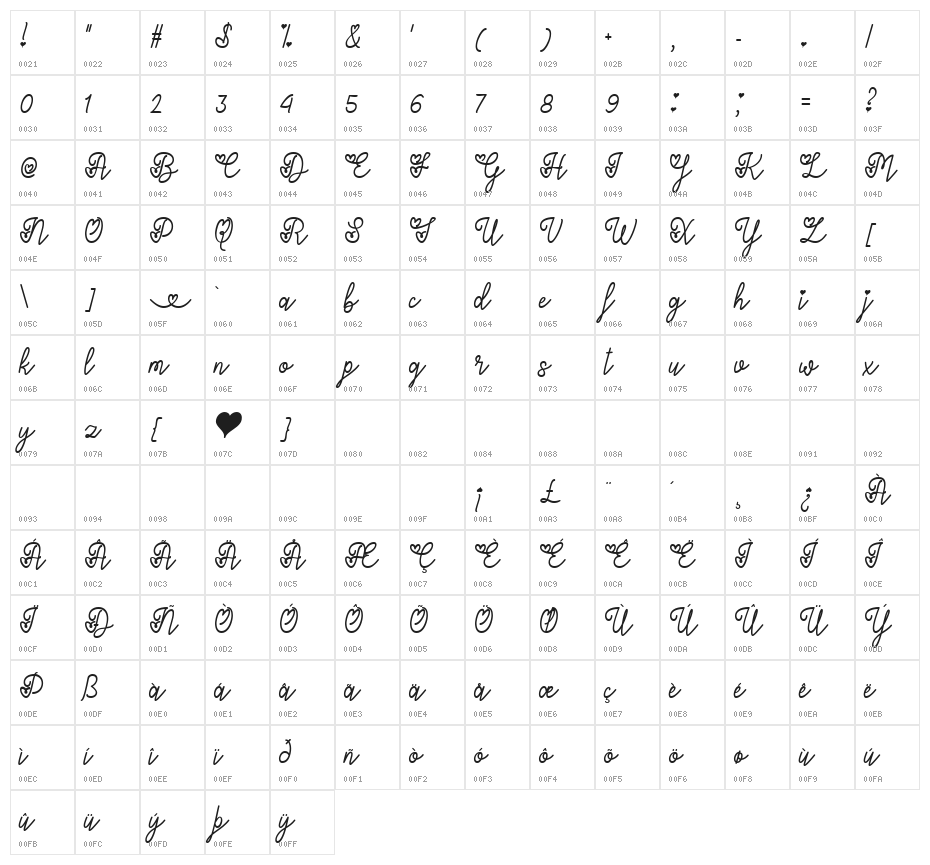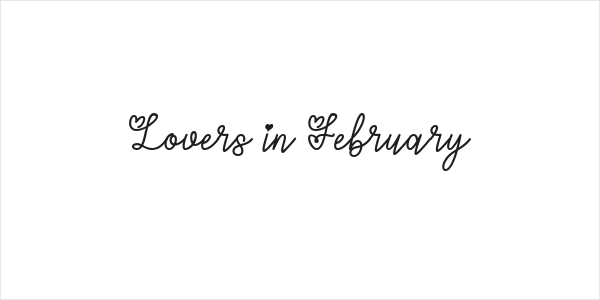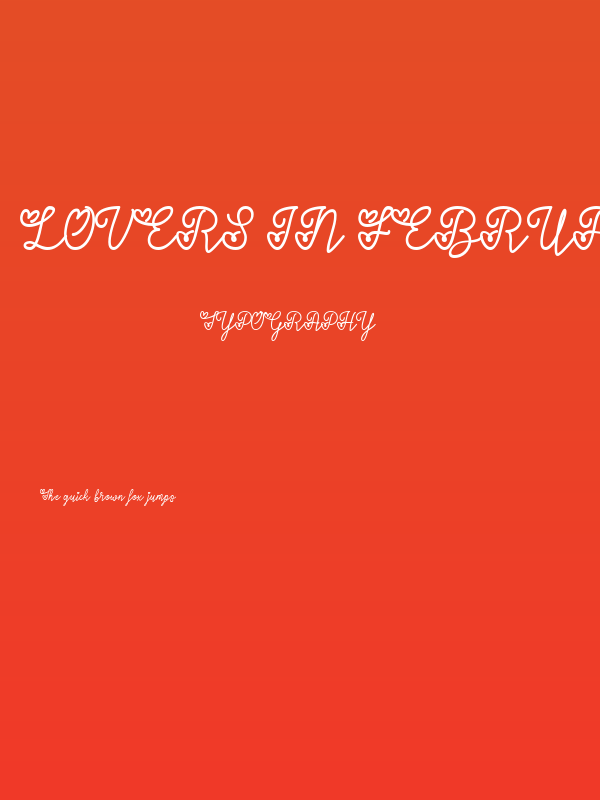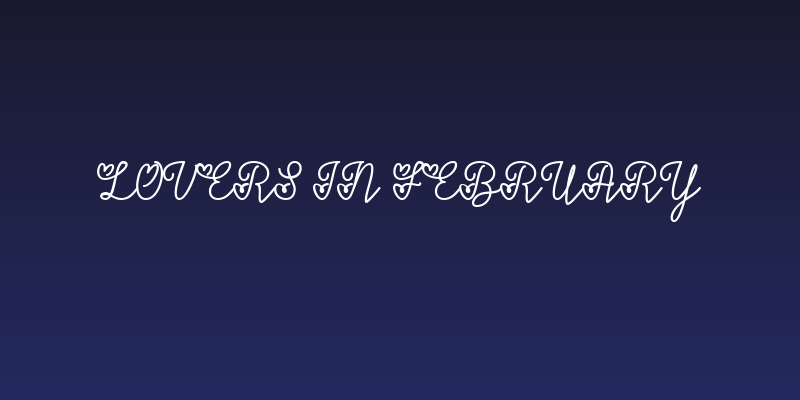
Lovers in February Font
Lovers in February Description
This font features a playful and romantic script style, characterized by flowing, interconnected letters with heart-shaped embellishments integrated into the design. The uppercase letters are particularly ornate, with each letter incorporating a heart motif, adding a whimsical and affectionate touch. The lowercase letters maintain a smooth, cursive flow, enhancing the font's overall elegance and charm. The numerals are consistent with the script style, offering a cohesive look. Special characters also include heart details, making this font ideal for love-themed projects. Its unique and decorative nature makes it stand out, perfect for capturing attention in creative designs.
Use CaseLogos, Invitations, Greeting Cards
Proposed ProjectsIdeal for wedding invitations, Valentine's Day cards, romantic branding, and love-themed posters.